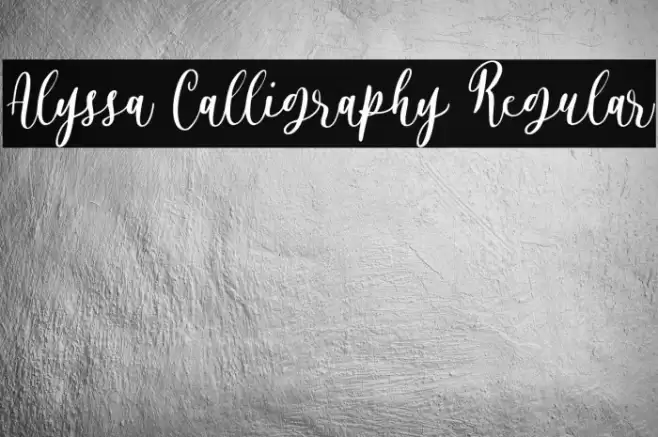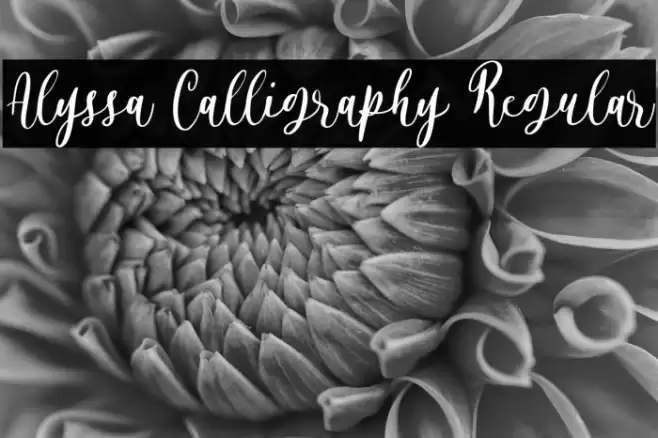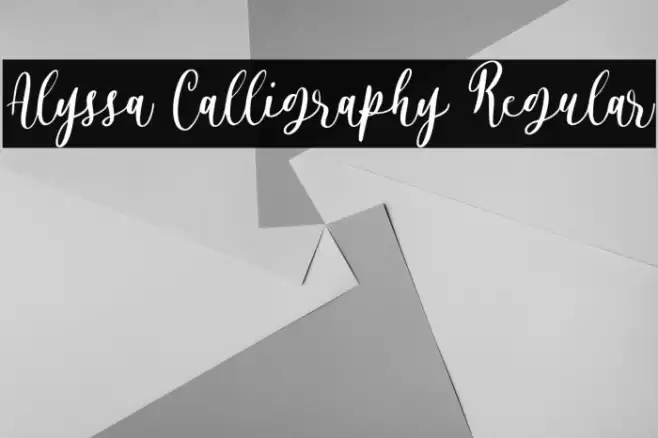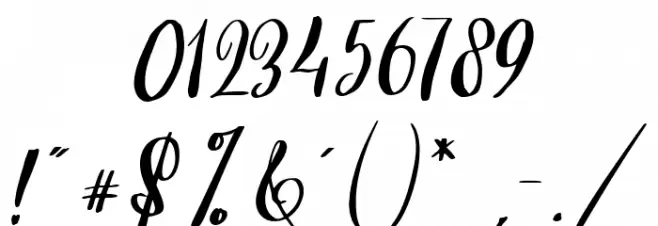
Alyssa Calligraphy Regular Font
Alyssa Calligraphy Regular Description
This elegant script font features flowing, interconnected letters that mimic the fluidity of traditional calligraphy. The uppercase letters are tall and graceful, with sweeping curves and flourishes that add a touch of sophistication. The lowercase letters maintain a consistent style, with rounded forms and smooth transitions between strokes. The numerals are clear and legible, maintaining the same calligraphic style. Special characters are creatively designed, adding to the font's versatility. This font exudes a sense of elegance and refinement, making it suitable for formal and decorative applications.
A graceful calligraphy-style script font with elegant, flowing letters from Regular fonts.
- Proposed Projects: Ideal for wedding invitations, elegant branding, greeting cards, and decorative print materials.
- Overall Style: Elegant, Decorative
- Use Case: Logos, Invitations, Decorative text